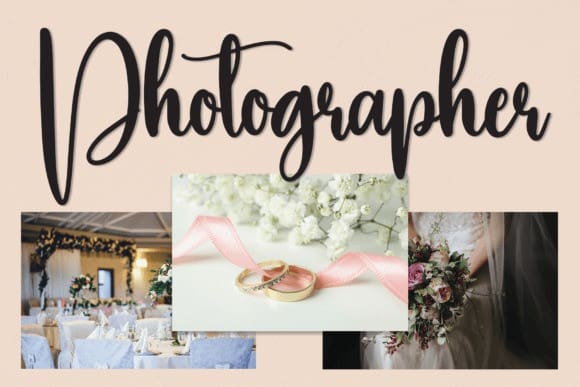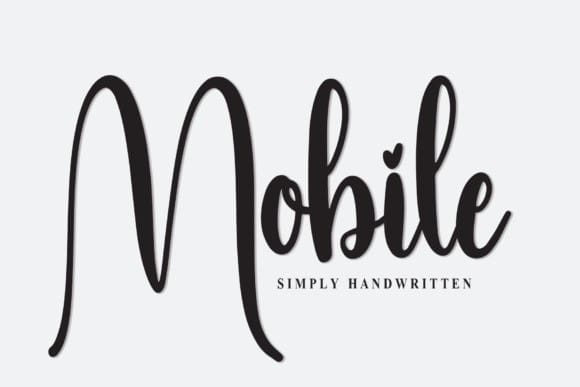
Mobile Script Font
Mobile Script Font is a beautiful handwritten typeface with feminine and delicate details. This lovely font is very nice for designing magazine previews and covers design, logo designs, shirt designs, and other graphic needs.